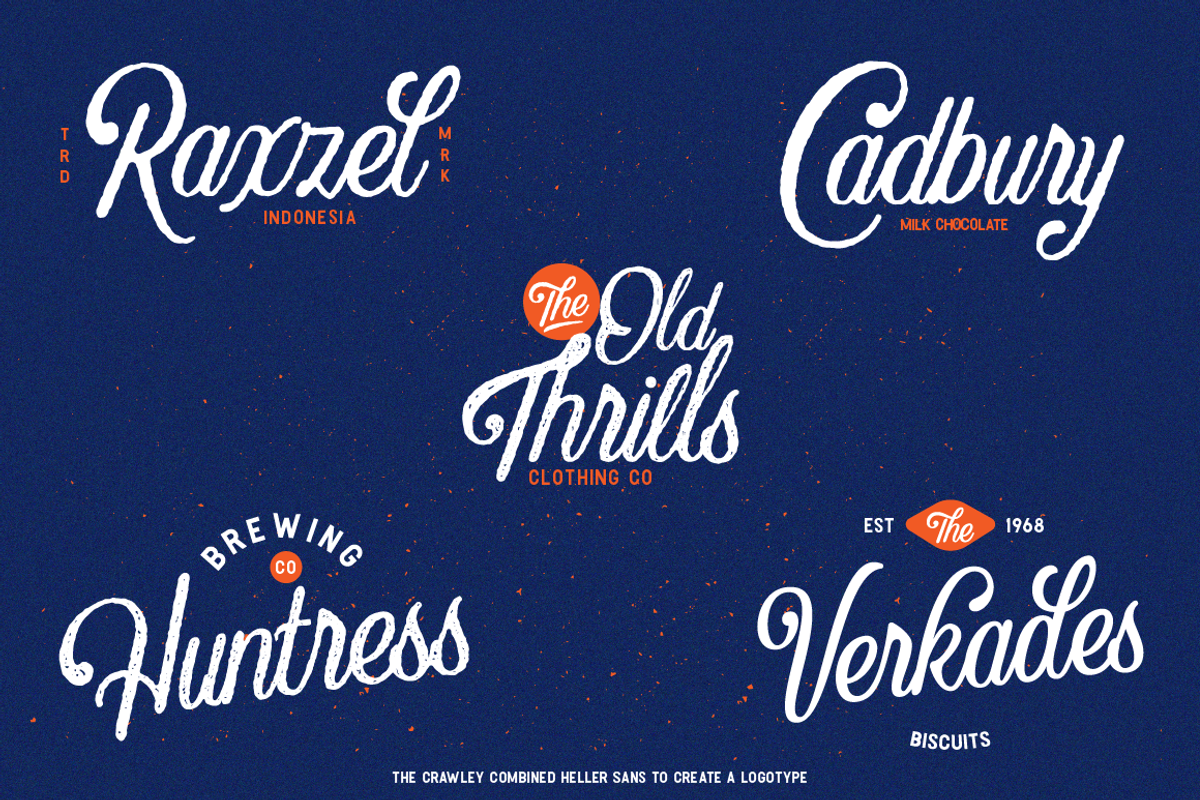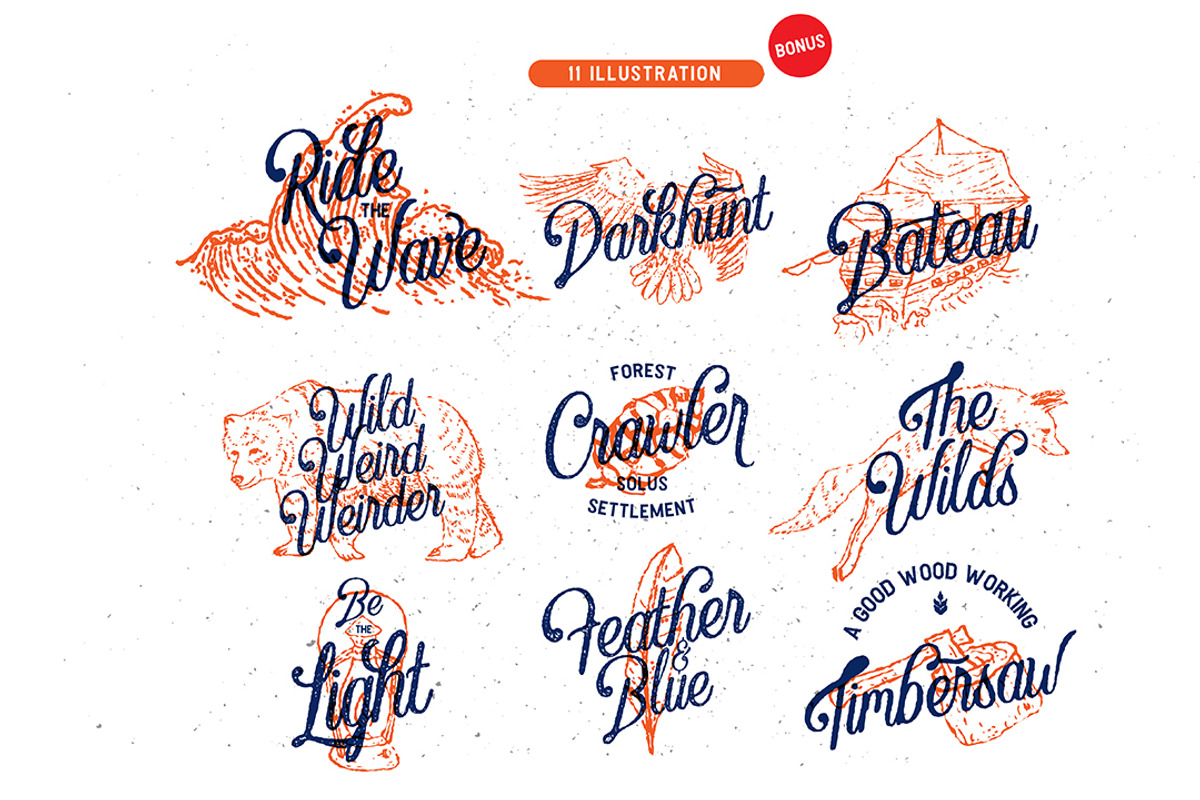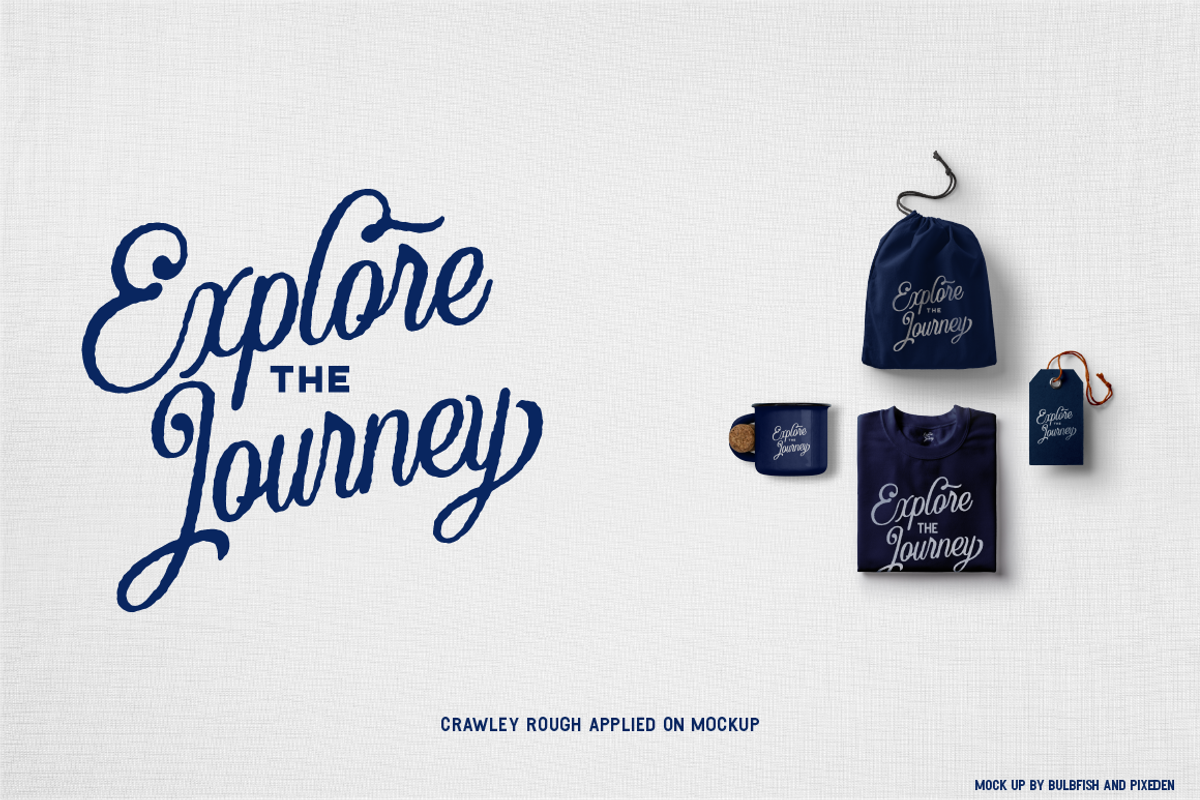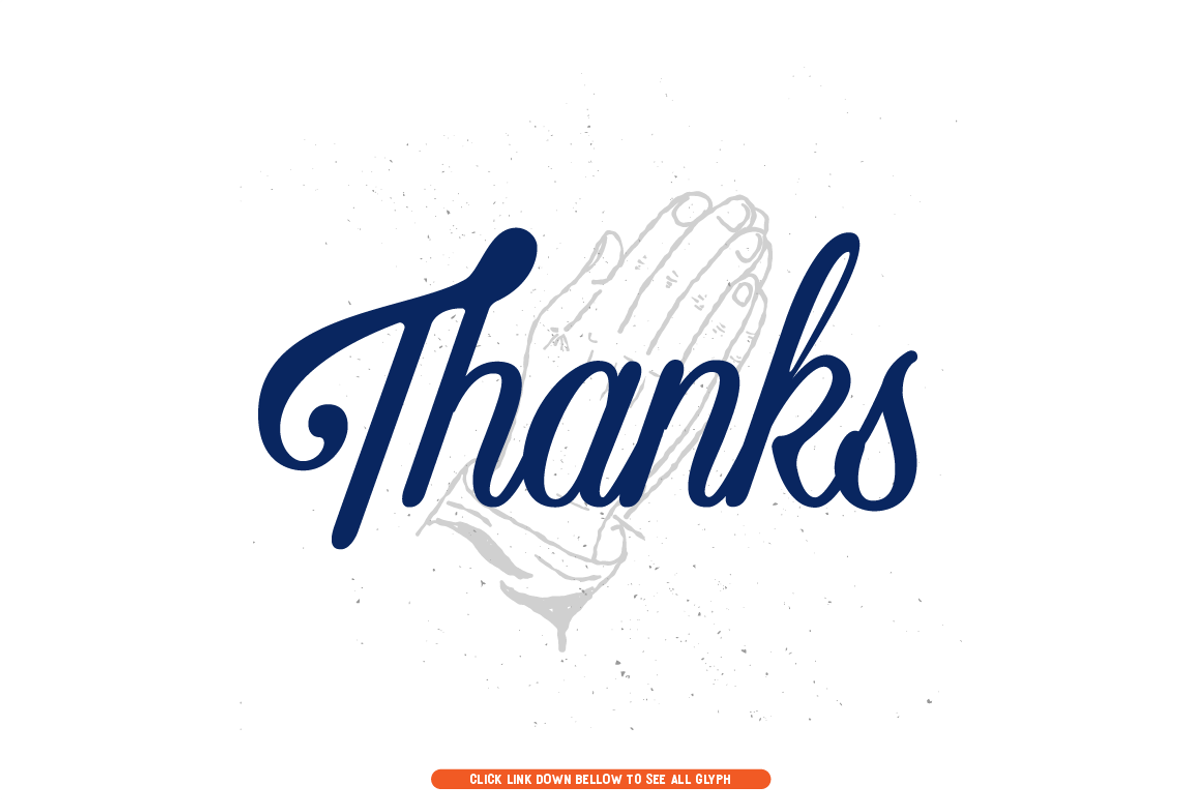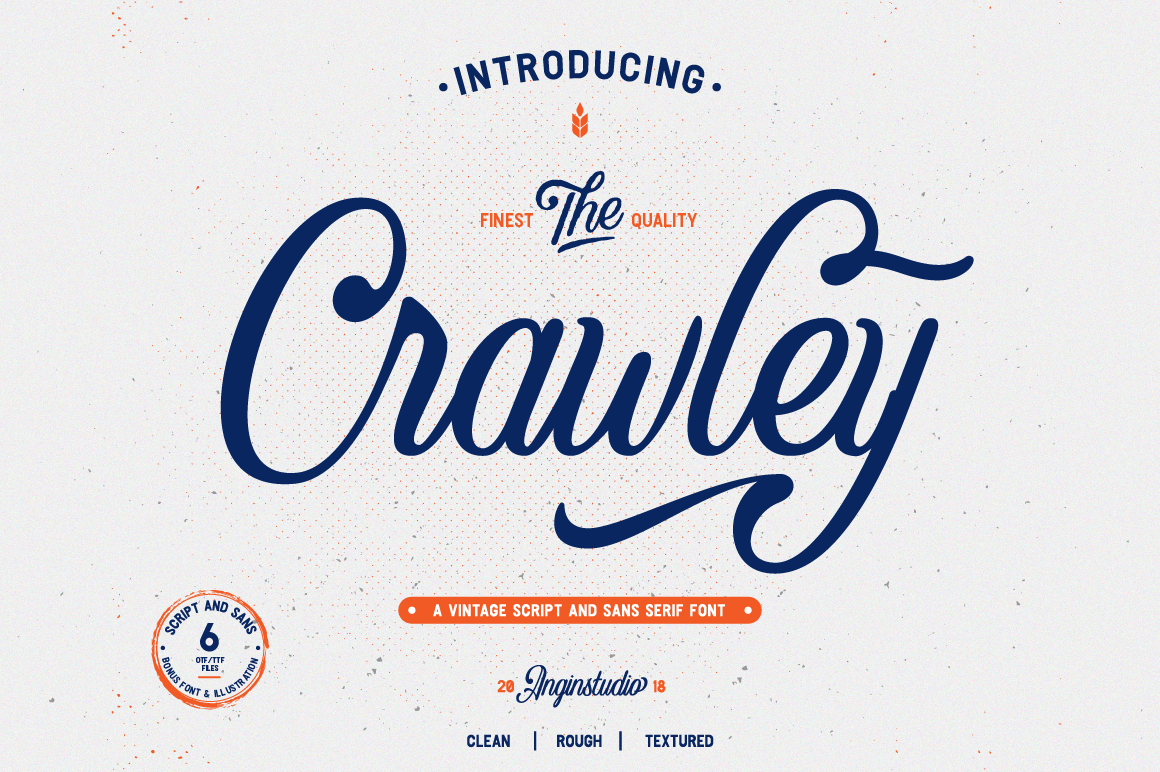
The Crawley (6 font with extras)
In the world we live in when so much typefaces has been made, people still need the new fresh one to representation their expression and what their speak.
Now let us introduce you our new font called "The Crawley"
Crawley is a vintage script based on our hand lettering, created carefully to make a good flow and make you feel something, this font inspired by the old american packaging, signs, and labels.
Crawley comes with 3 styles
- Clean
- Rough
- Textured
Crawley opentype feature with ligature, stylistic alternates, and directionary alternates allow you to mix and match of letters to make your own good design. also Crawley comes with multingual support
Extras
This product allow you to combine everythings inside the pack to make your design more interesting.